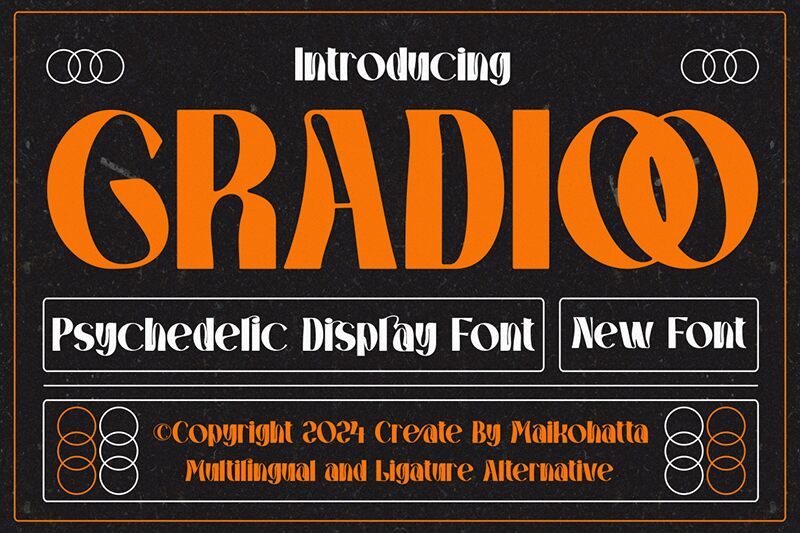
GRADIOO
Gradioo font, a creation by Gilang Ternadho, blends groovy and retro vibes into one display typeface characterized by its unique condensed design. This sophisticated and elegant text is inspired by vintage styles and art deco influences for a nostalgic appearance that still boasts a modern flair.
Classic appeal with subtle luxury, Gradioo works well with branding projects in particular those concerning luxury products. Use it for labels or packaging designs, advertisements, editorial designs, magazine covers, headlines, print items, business cards, shop signs or storefronts.